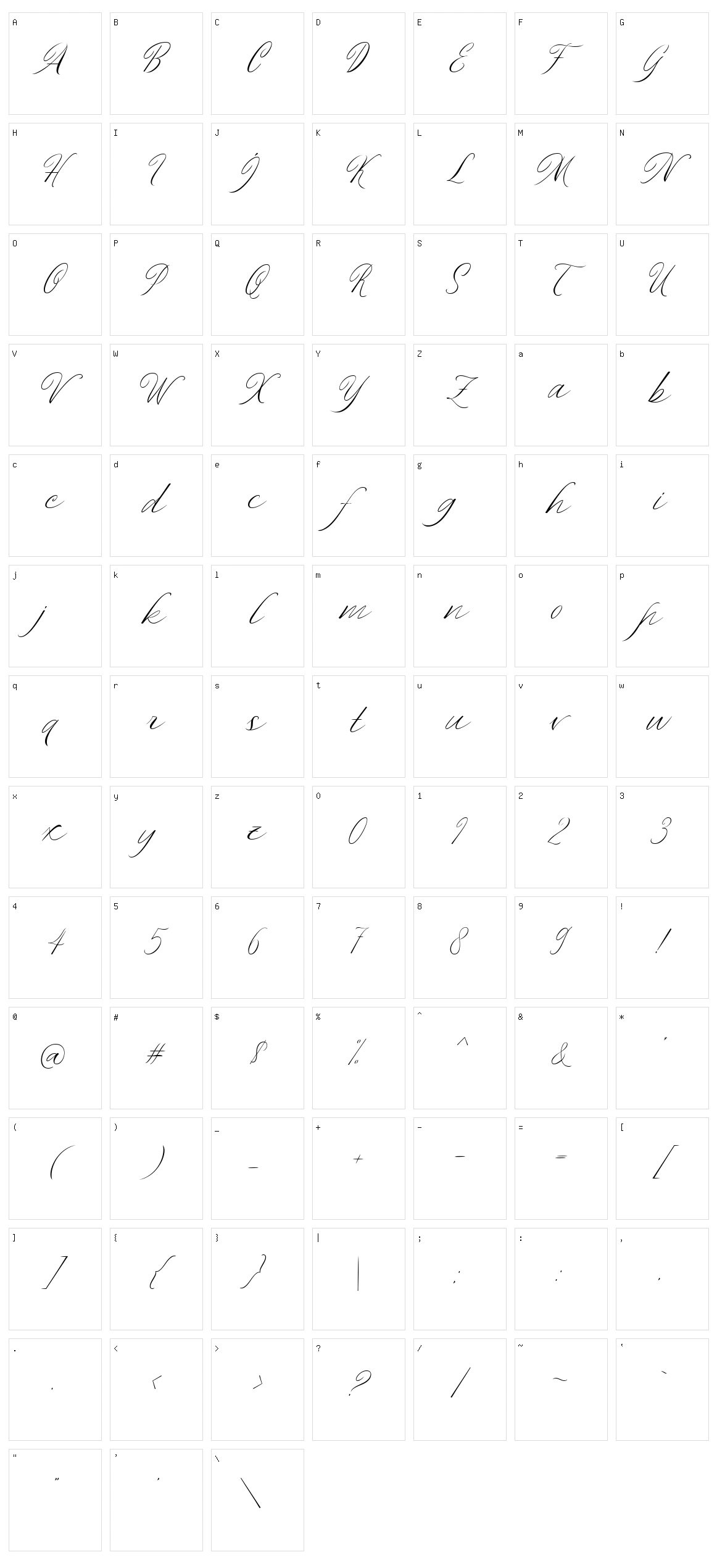
The free font Martan Calline is carefully designed by Letterhend Studio, showcasing a thoughtful balance of creativity and usability and falls under the Script font style. When you download the ZIP file, it contains only 2172.89 KB of font files, making it lightweight and quick to download. Please review the license details below to understand permitted usage and distribution rights. If license information is not available, we recommend using this font for personal projects only or contacting the author directly for commercial usage permissions.